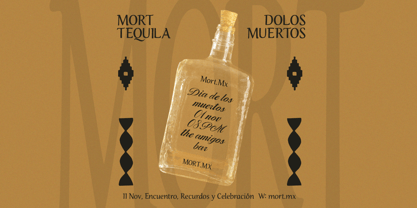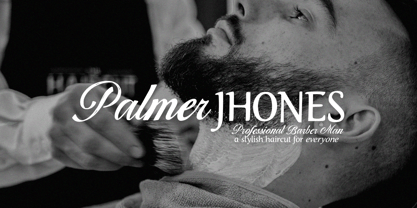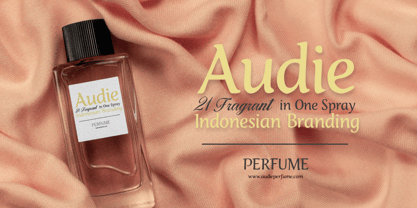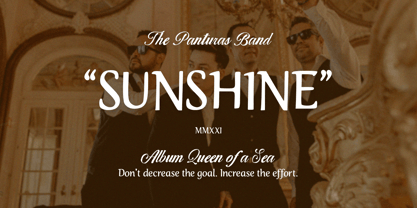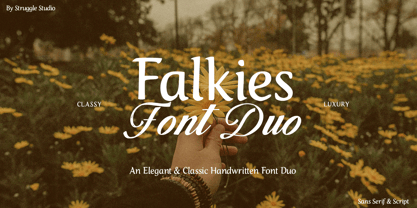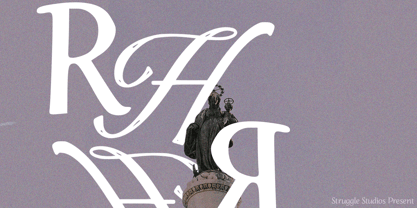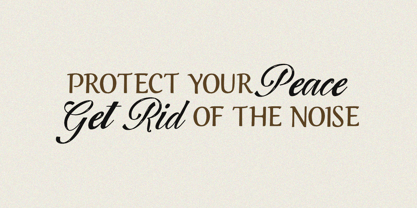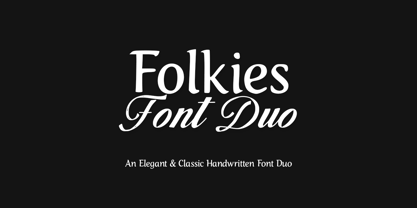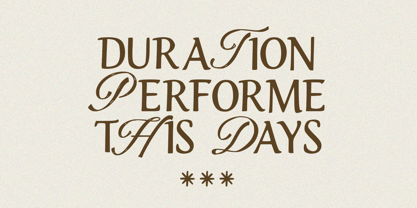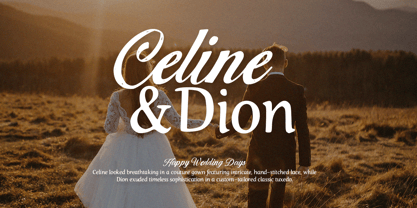
Falkies
par Struggle Studio
La famille de polices Falkies a été conçue par Andri Kurniawan et publiée par Struggle Studio. Falkies contient 2 styles et options de package familial. En savoir plus sur cette famille
Falkies Font Duo – A Timeless Blend of Elegance and Heritage Elevate your creative projects with Falkies Font Duo, a masterfully curated pairing of a clean, organic Sans Serif and a flowing, sophisticated Script. Designed by Struggle Studio, this duo strikes the perfect balance between "Classy" and "Luxury," making it an essential tool for designers seeking a warm, authentic aesthetic. The Perfect Harmony The Falkies collection is built on the philosophy of contrast. The Sans Serif provides a sturdy, legible foundation with a classic touch, while the Script adds a layer of human personality and high-end flair. Together, they eliminate the guesswork of font pairing, ensuring a professional look every time. Key Highlights: Seamless Pairing: Two distinct styles—Sans Serif and Script—engineered to work together beautifully. Handcrafted Feel: Captures the nuances of natural handwriting for an authentic, bespoke appearance. Versatile Aesthetic: Transitions effortlessly between rustic vintage vibes and modern luxury branding. Ideal Applications: Branding & Identity: Perfect for logos, business cards, and brand guidelines for boutique businesses. Editorial Design: Beautiful for magazine layouts, book covers, and headers. Wedding & Events: Adds a romantic and premium touch to invitations, menus, and place cards. Social Media: Create eye-catching, shareable quotes and lifestyle content. Packaging: Give your product a "high-street" feel with elegant typography. What’s Included: Falkies Sans Serif: A clean yet characterful font with an organic silhouette. Falkies Script: An elegant, rhythmic handwriting font with fluid ligatures. "Bring a sense of timeless luxury and soulful craftsmanship to your digital and print designs with Falkies Font Duo."
Concepteurs: Andri Kurniawan
Fonderie: Struggle Studio